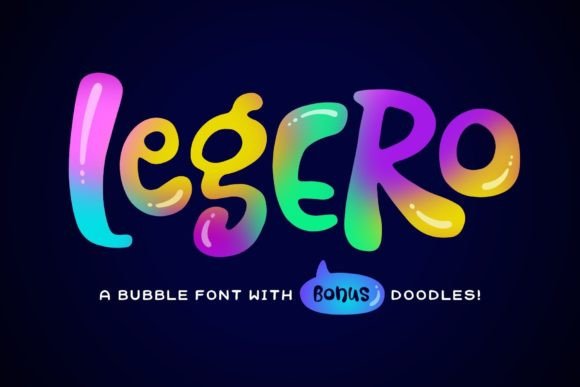
Introducing Legero Font, the ultimate choice for all your creative projects! Crafted by the talented Denise Chandler, this font is designed to add a touch of fun, retro vibes to your designs. Whether you're a seasoned designer or just starting out, Legero Font is a must-have in your collection.
As a display font, Legero stands out with its bubbly and playful style. It captures the essence of a bygone era, bringing a nostalgic charm to any project. But that's not all - this font goes above and beyond to offer you versatility and endless possibilities.
With Legero Font, you get two delightful variations: solid and shiny. The solid version exudes a clean and bold appeal, perfect for making a bold statement. On the other hand, the shiny version adds a touch of glamour and elegance to your designs, making them truly eye-catching.
But what sets Legero Font apart from the rest is its extensive range of alternate characters. These unique characters allow you to mix and match, giving your projects a one-of-a-kind feel. Let your creativity run wild as you experiment with different combinations, adding that extra spark of uniqueness to your designs.
And that's not all - Legero Font surprises you with an array of music-themed doodles! These doodles can be easily accessed using both uppercase and lowercase letters, allowing you to effortlessly create music-inspired designs. From musical notes to instruments, your designs will resonate with rhythm and melody.
But it doesn't stop there. Legero Font also includes abstract backgrounds that work wonders as masks. Create stunning designs, just like the ones you see in the screenshots, by overlaying these backgrounds. Let your imagination soar as you craft mesmerizing visuals that captivate your audience.
Now, imagine the possibilities. Legero Font is the perfect companion for any creative project - be it branding, logos, posters, invitations, or social media graphics. It adds a touch of playfulness, a sprinkle of nostalgia, and a dash of uniqueness to every design.